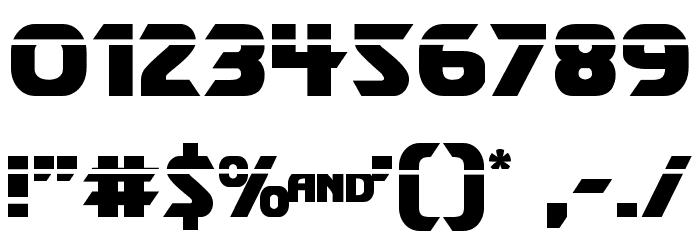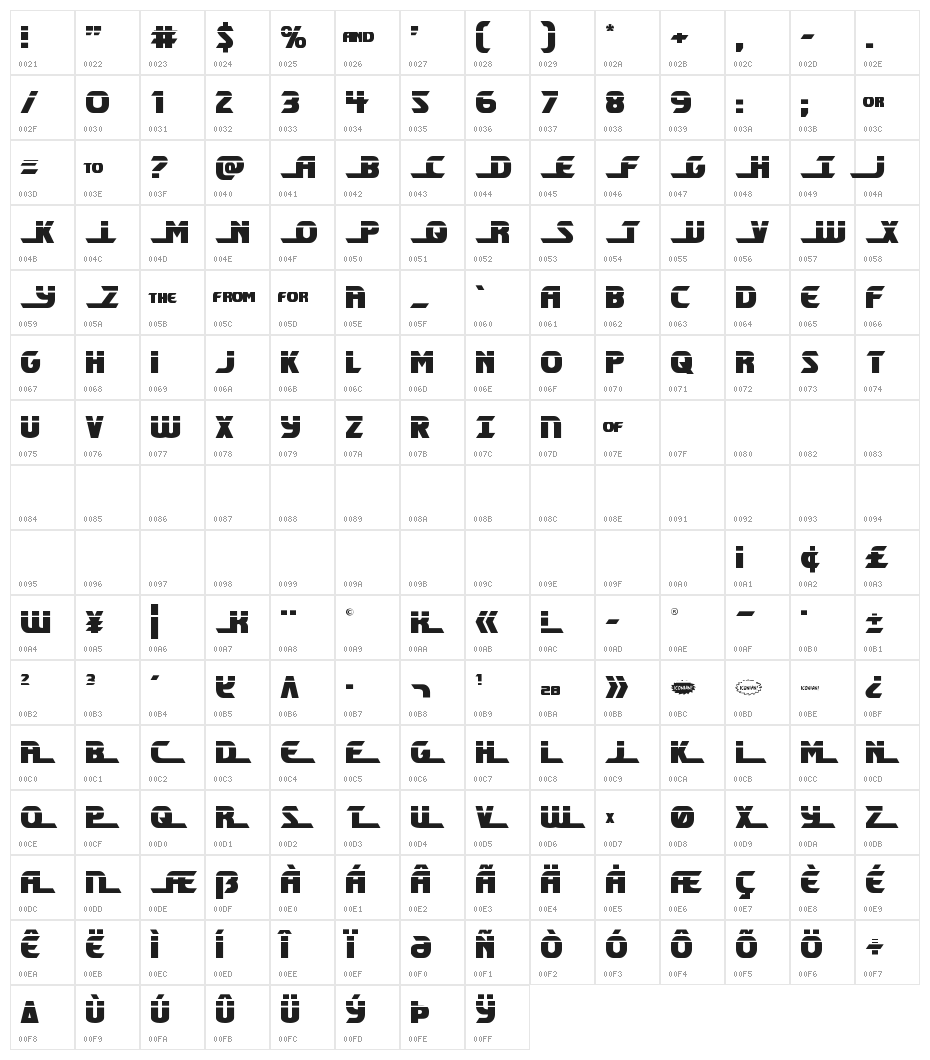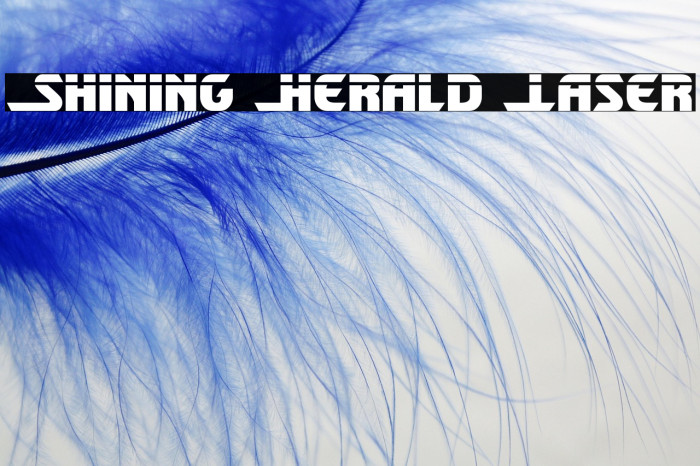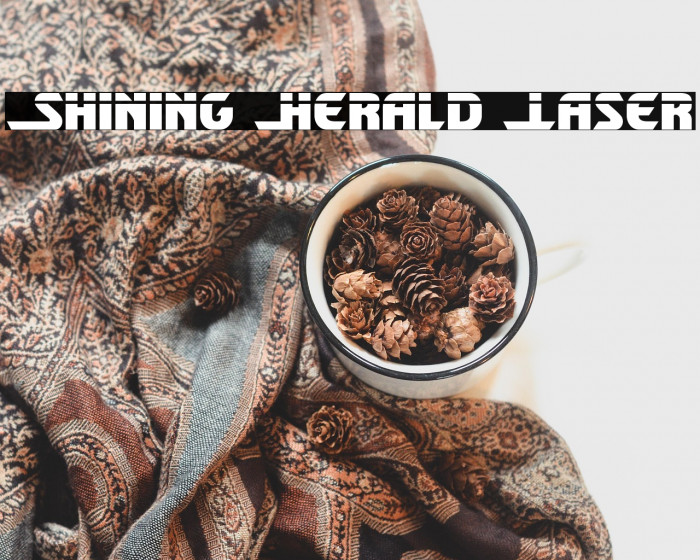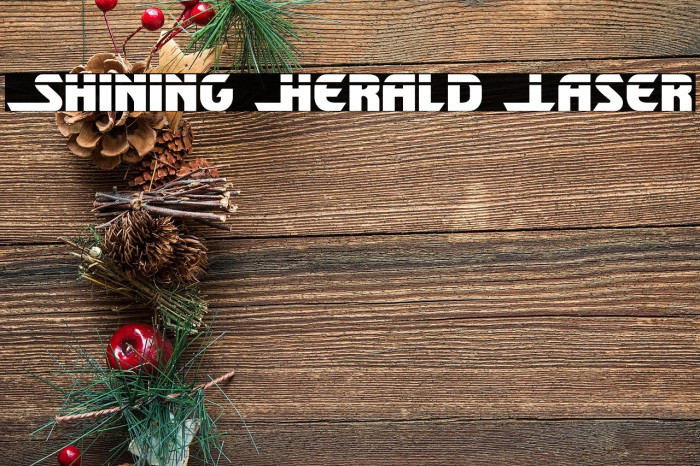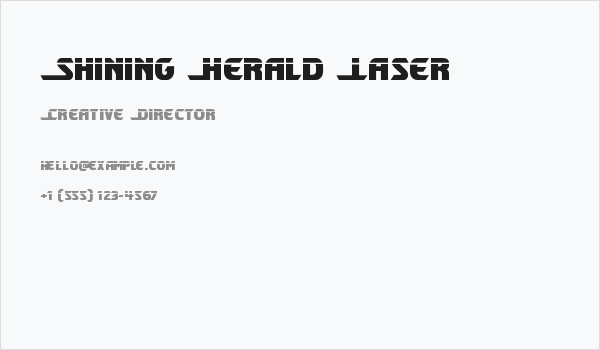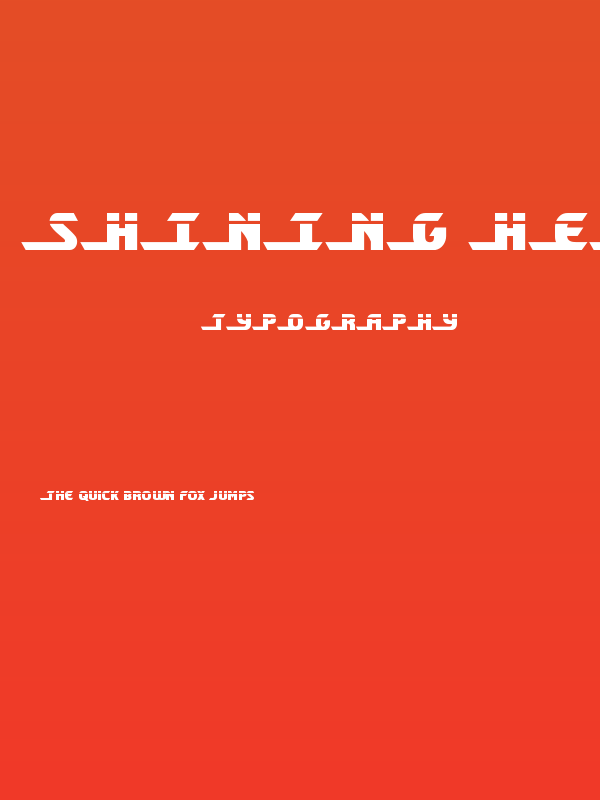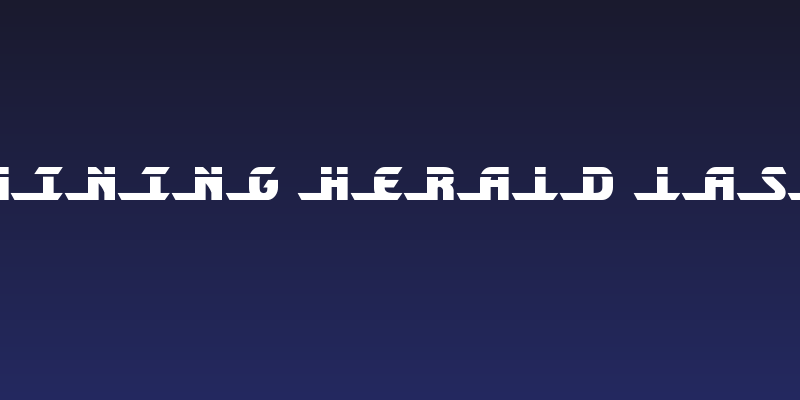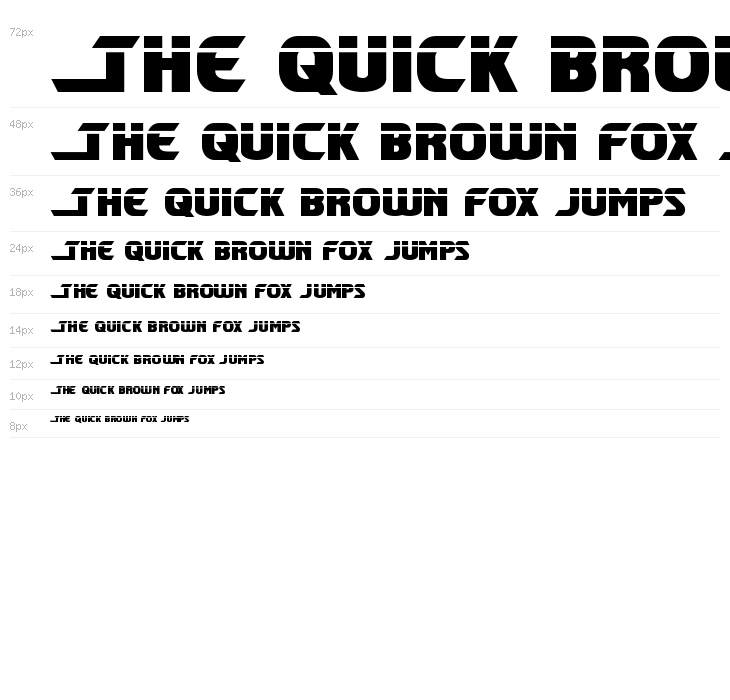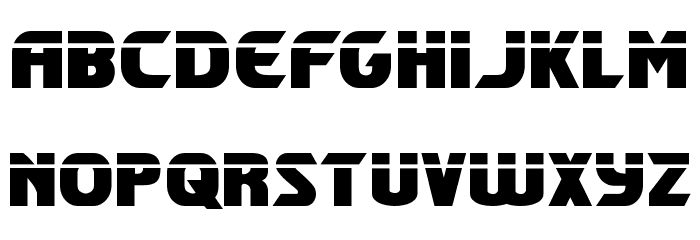
Shining Herald Laser Font
Shining Herald Laser Description
This font features a bold and futuristic design with sharp, angular edges and a distinct geometric style. The uppercase letters are particularly striking, with a strong presence and a sense of movement. The lowercase letters maintain the same boldness, ensuring consistency across text. Numbers and special characters are designed with the same angular and geometric approach, making them highly legible and visually impactful. The font's style is reminiscent of digital or sci-fi themes, making it suitable for modern and tech-oriented projects.
| Proposed Projects | Ideal for tech-related branding, sci-fi movie posters, video game titles, and futuristic event flyers. |